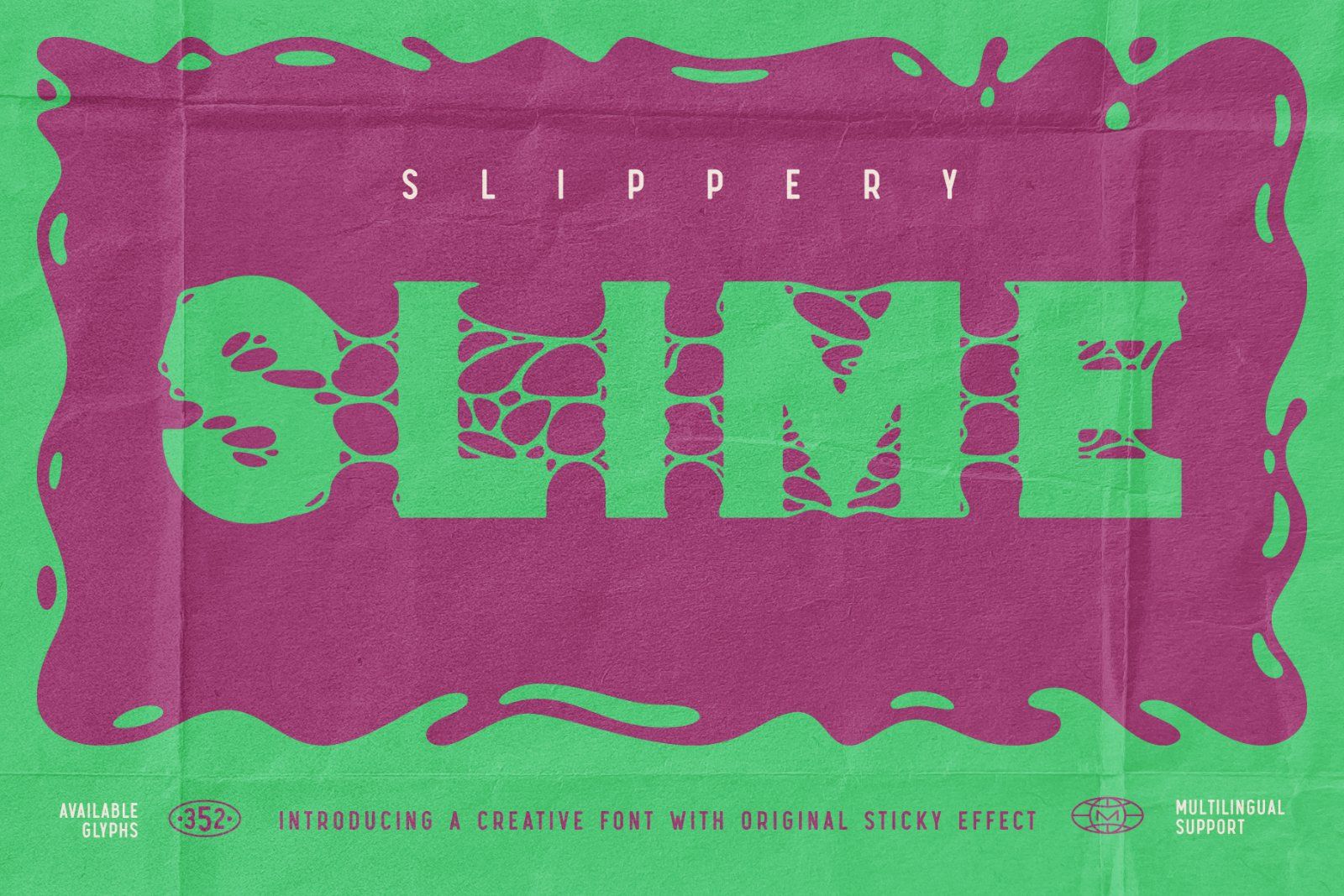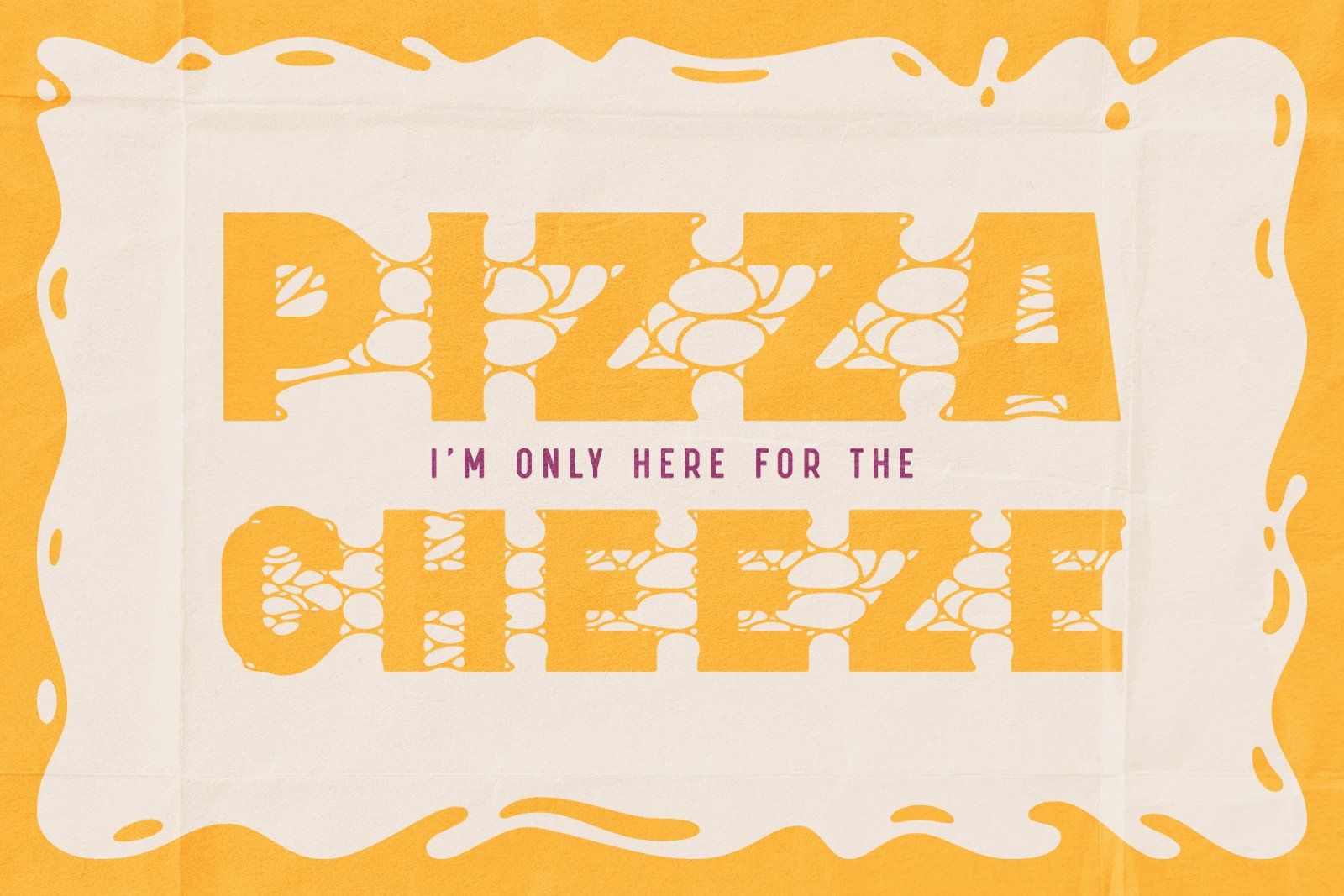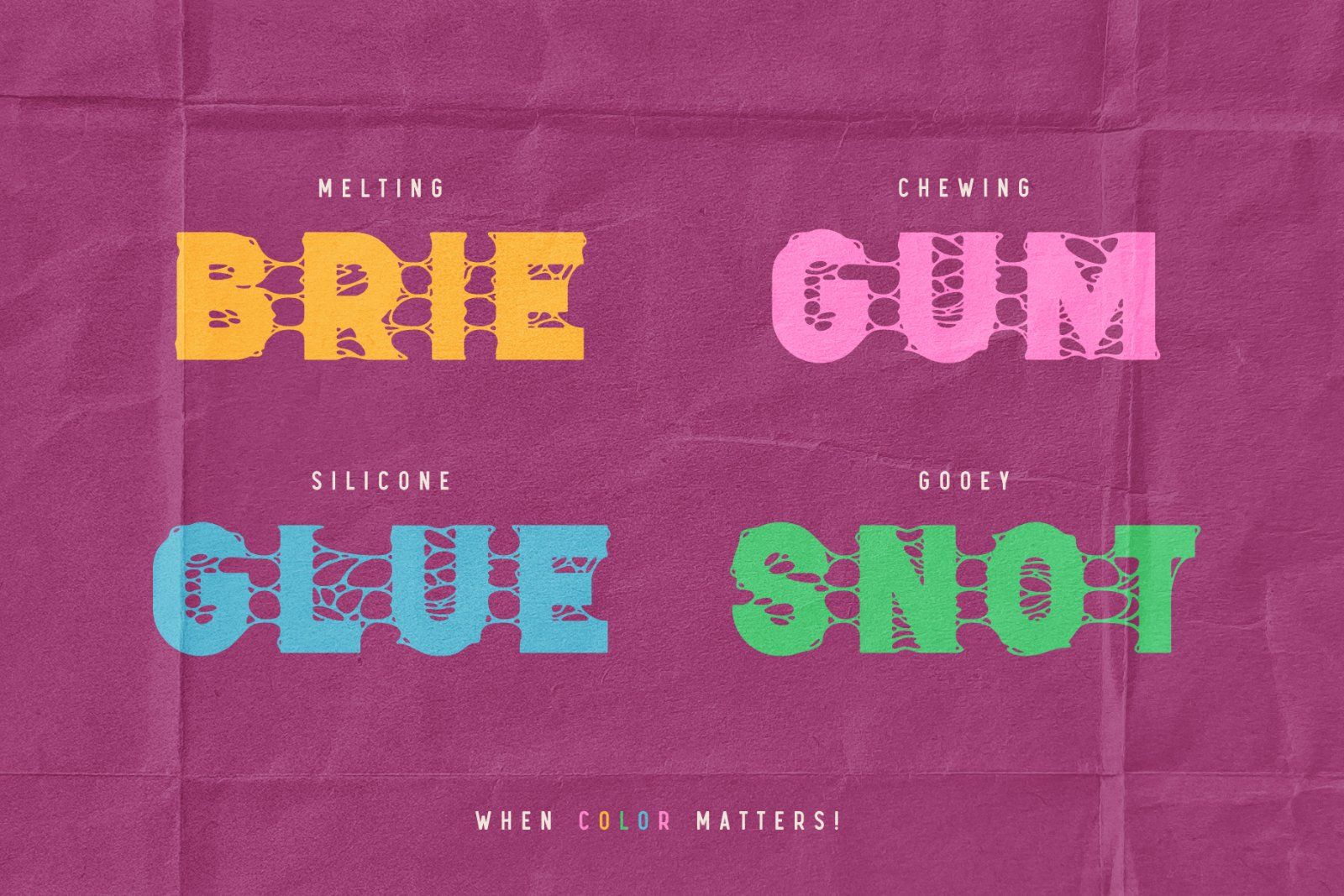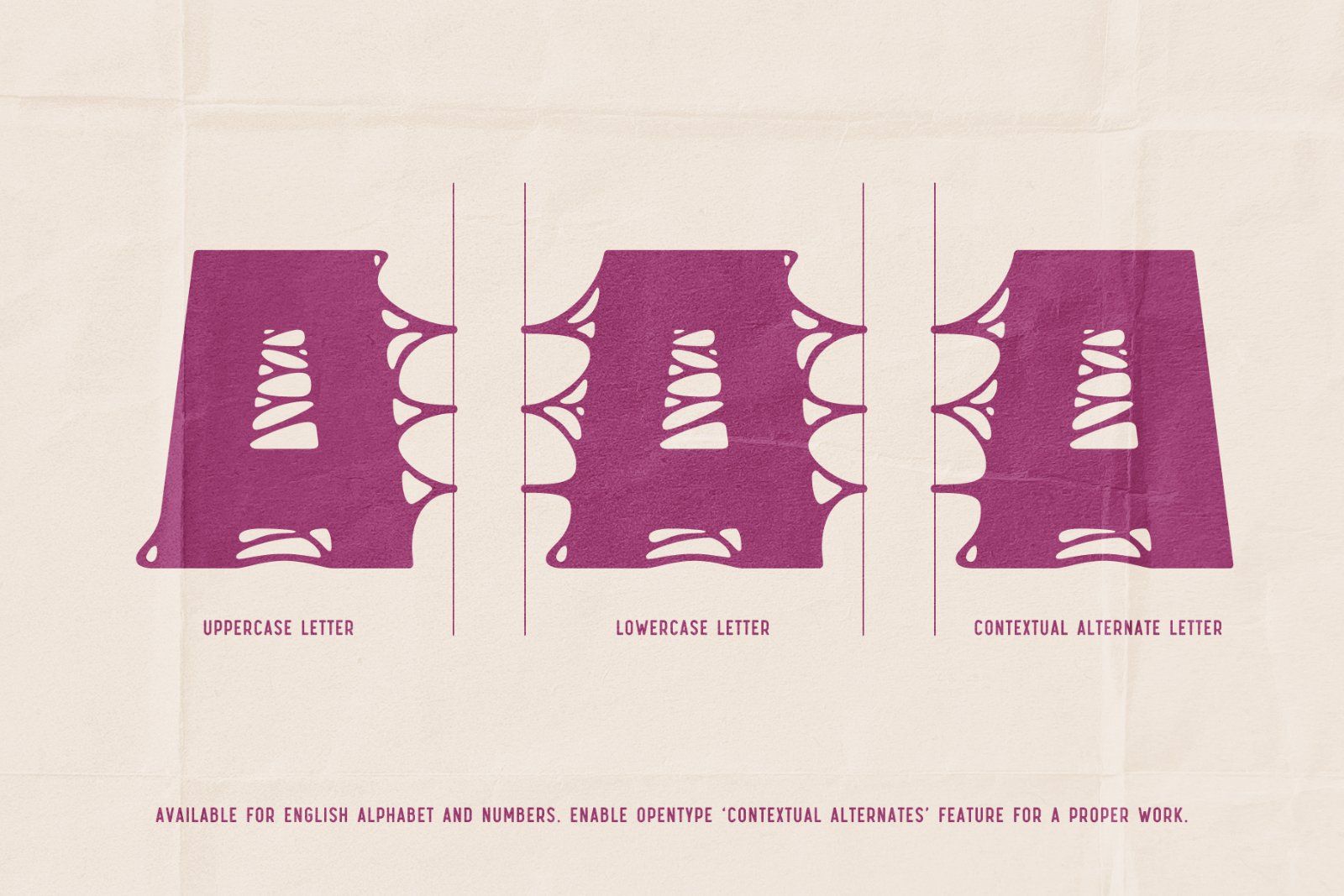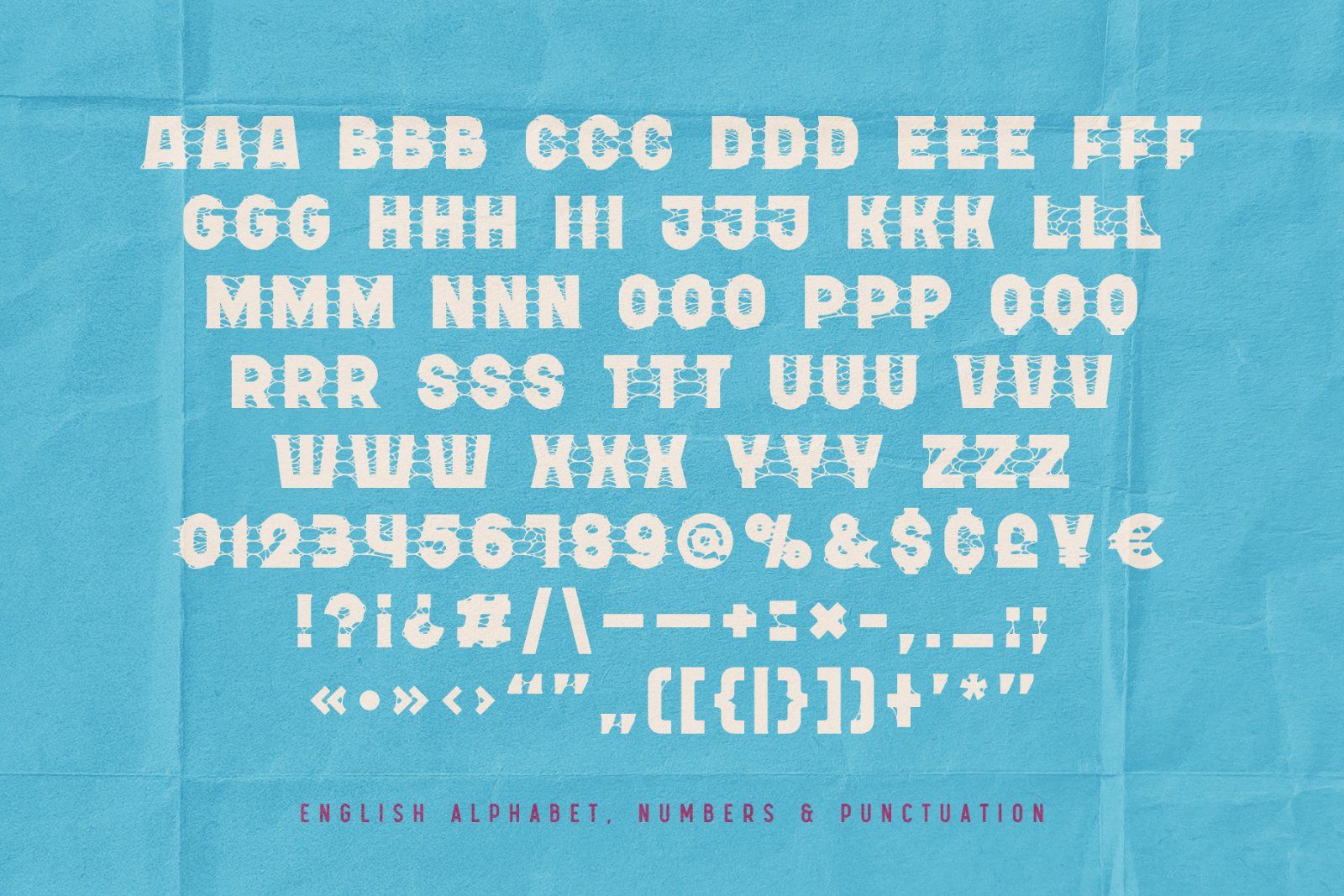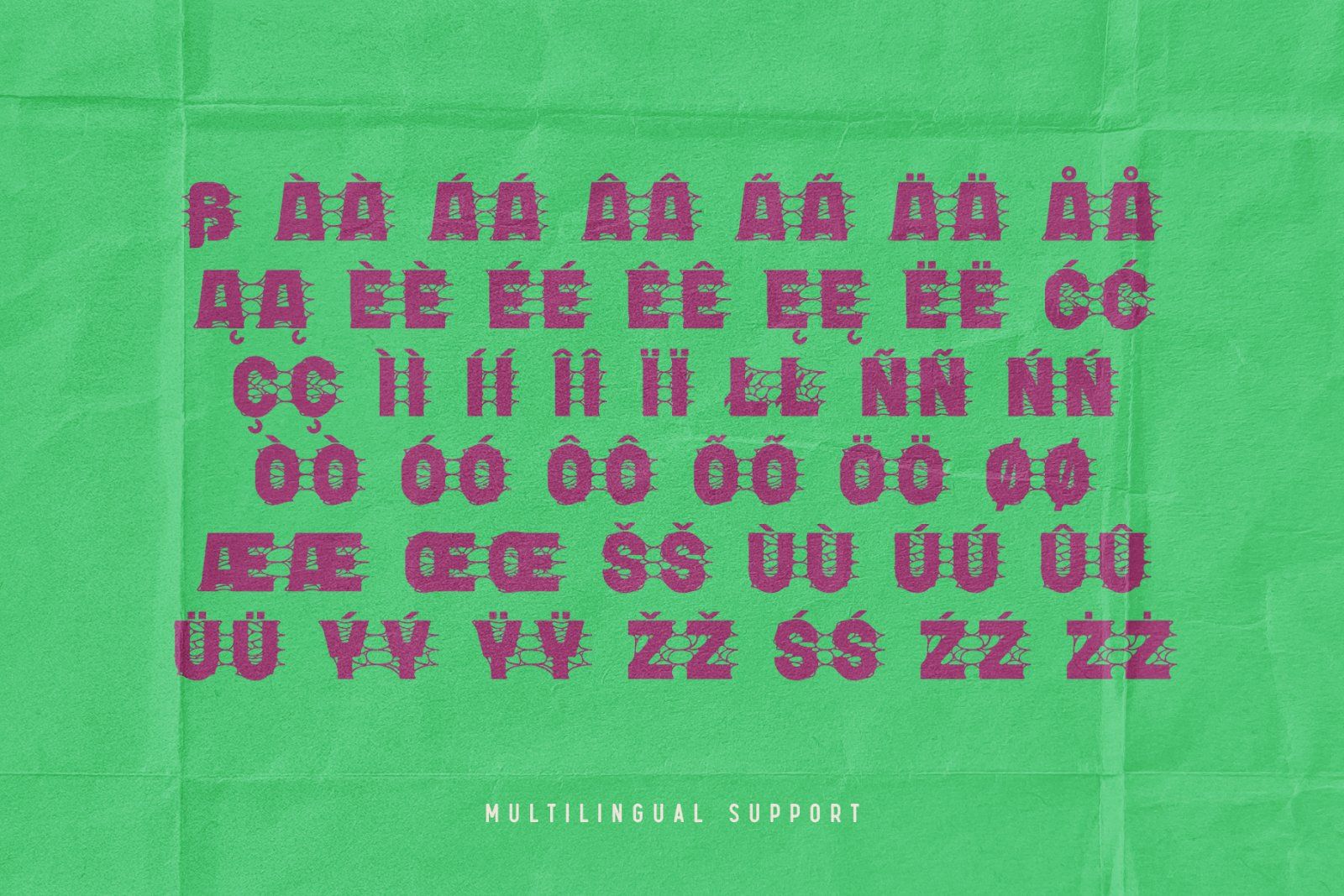
Introducing Slippery Slime, a creative display font featuring an original sticky effect. Its connected, gooey letterforms make it the perfect choice for funny advertisements and unique lettering designs.
Slippery Slime includes a set of 352 characters, allowing you to create a seamless effect using OpenType features like contextual and stylistic alternates. Please note that the right-side terminal shapes are only available for the English alphabet and numbers. Standard multilingual character support is also included.